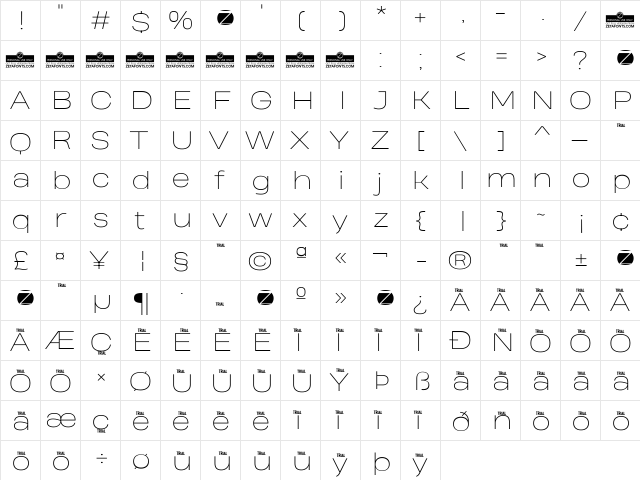
Heading Pro Wide Trial Thin
| Foundry | Studio Kmzero & Zetafonts |
| Designer | Francesco Canovaro |
Design Context for Heading Pro Wide Trial Typeface
Heading Pro Wide Trial is a composed and adaptable typeface that performs quietly and consistently across a wide range of design contexts. Its slender proportions lend an understated elegance to any composition.